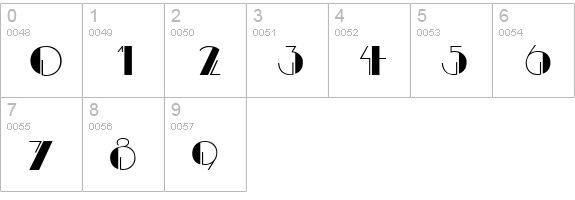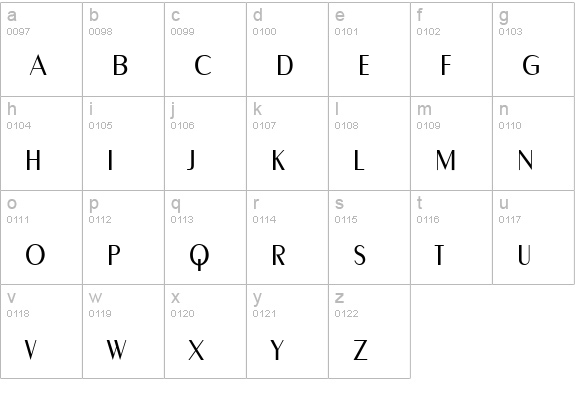
B691-Deco-Regular is the standard, neutral variant in the B691 typeface family \xE2\x80\x94 well suited to general body text, paragraphs, and standard typographic work.
B691-Deco-Regular font is a stylish and elegant typeface that exudes a classic art deco charm. Its bold lines and intricate details make it perfect for adding a touch of sophistication to your designs. This versatile font can be used for a variety of projects, from branding to editorial design. The B691-Deco-Regular font is available for free download at FontsMarket.com, making it easily accessible for designers looking to enhance their projects with a touch of vintage flair. With its timeless appeal and unique character, this font is sure to make a lasting impression on any design it is used in. Elevate your next project with the B691-Deco-Regular font and bring a touch of art deco beauty to your designs.